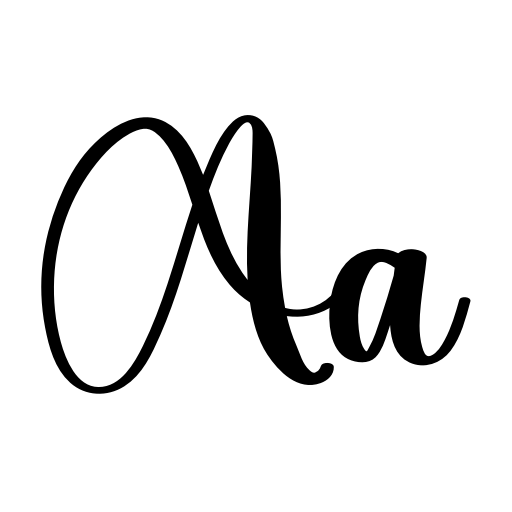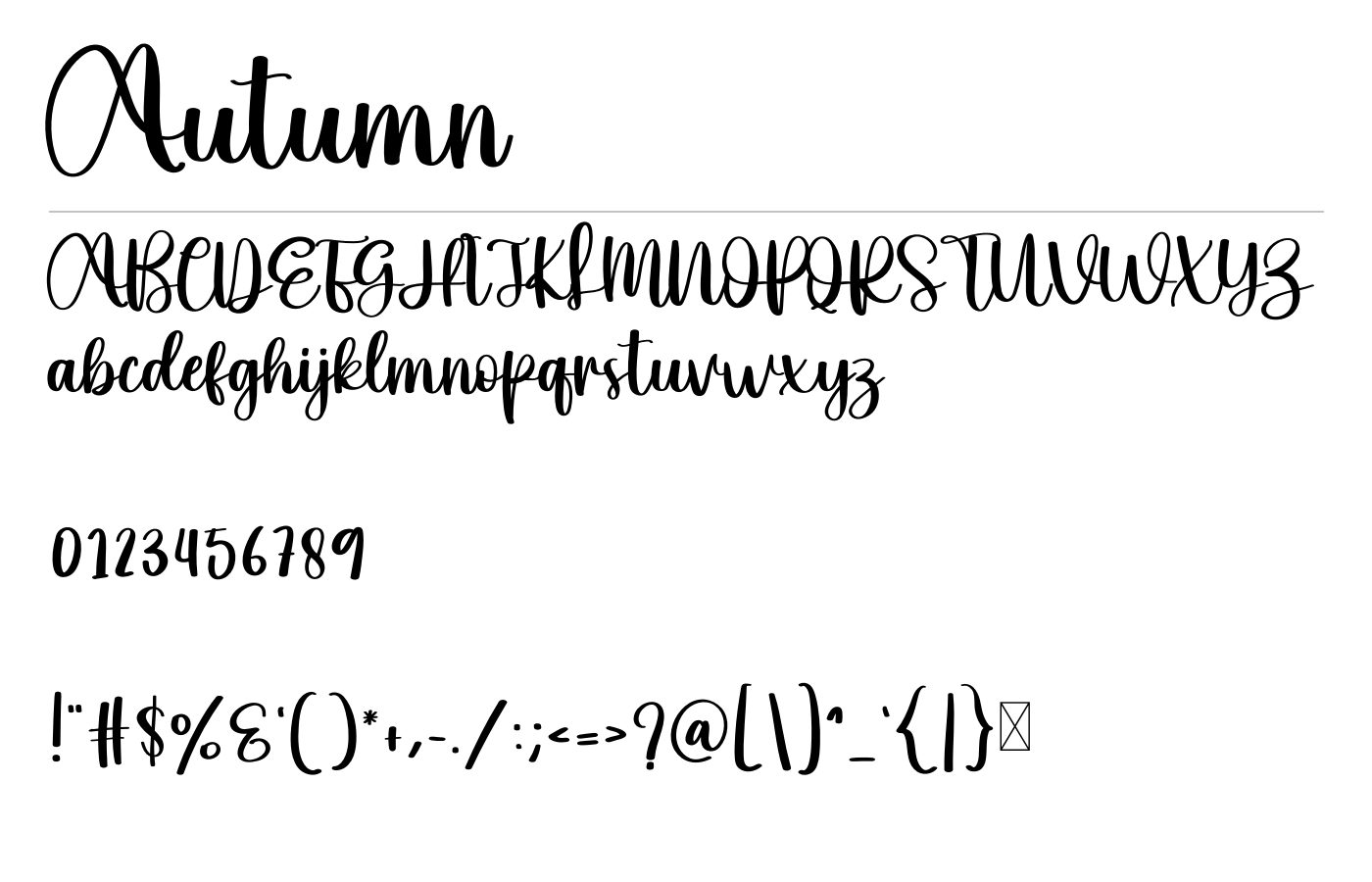
Autumn Font is a stylish script typeface with elegant, flowing letterforms that combine playful charm and a handwritten feel. Its moderate contrast and smooth curves make it perfect for creative branding, invitations, and expressive headlines where a warm, personal touch is desired. This font works beautifully in design contexts that benefit from a friendly yet refined look, such as fashion, lifestyle, and boutique projects.
Autumn Font